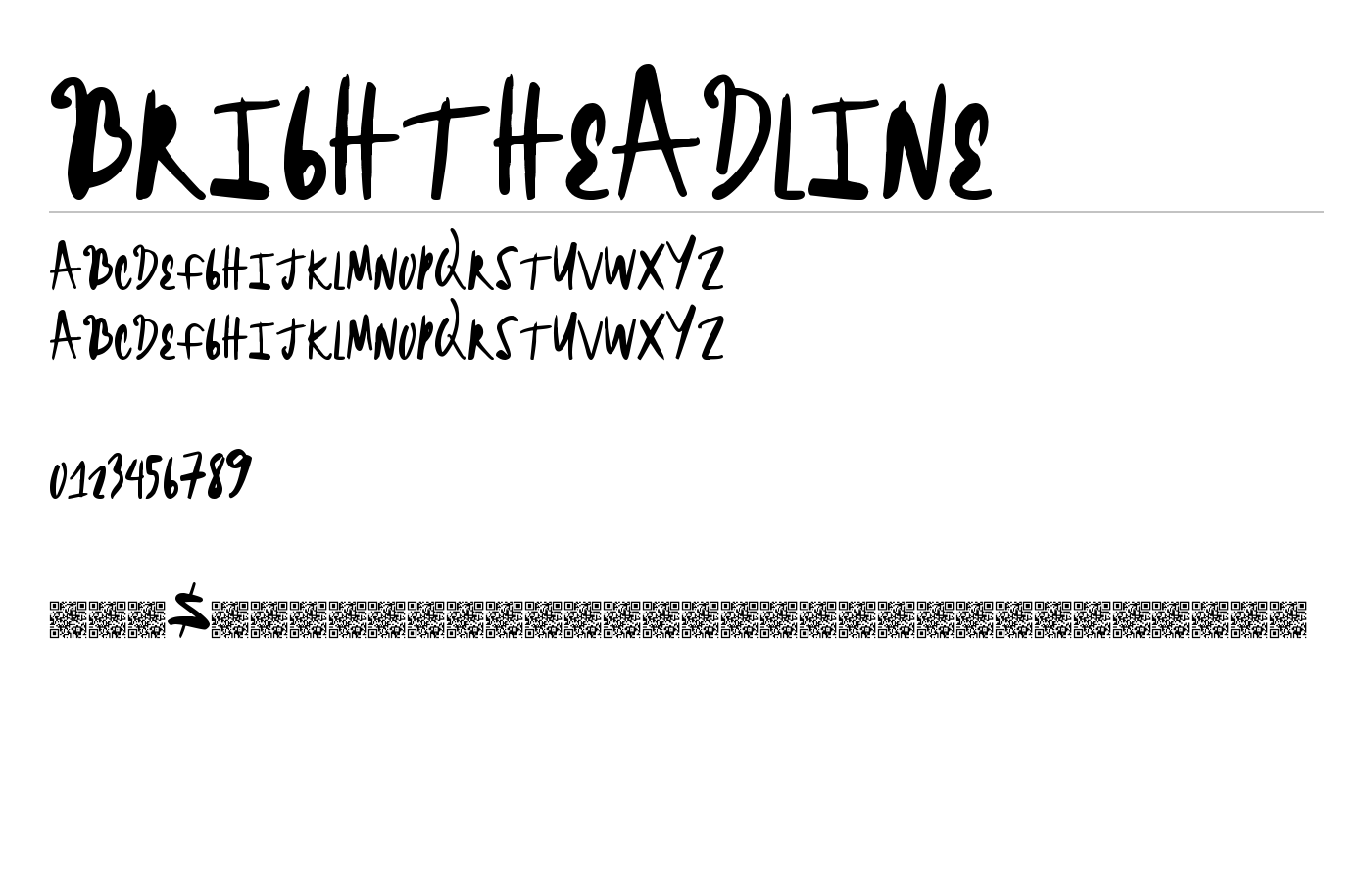
BrightHeadline is a quirky, hand-drawn font with an energetic and playful personality, featuring irregular stroke widths and whimsical character shapes that give it a lively, informal feel. Its tall, narrow letterforms with uneven strokes make it perfect for creative headlines, posters, or branding that seeks a unique, fun, and casual vibe. This font works best when you want to capture attention with a bold, artistic style that stands out from more traditional typefaces.
BrightHeadline Font
About BrightHeadline Font